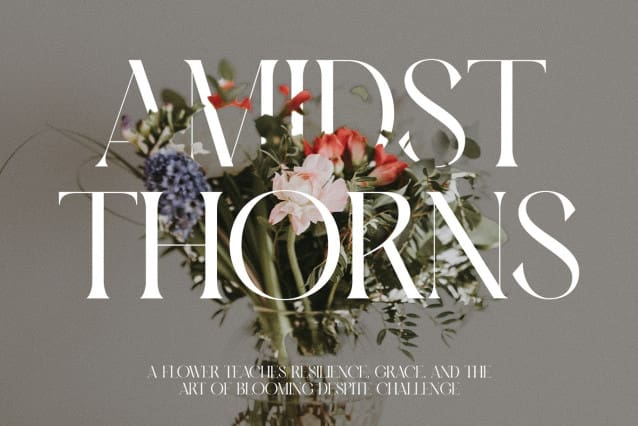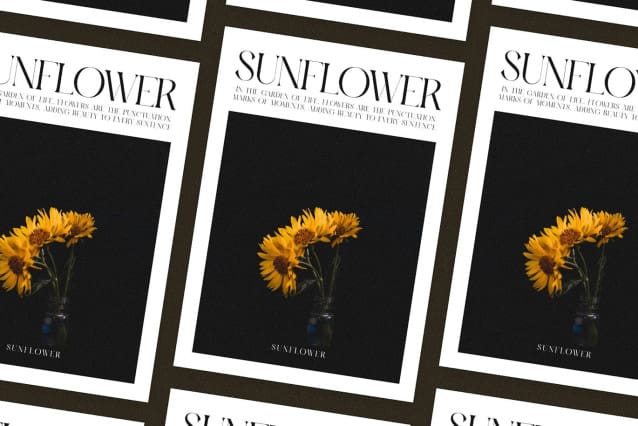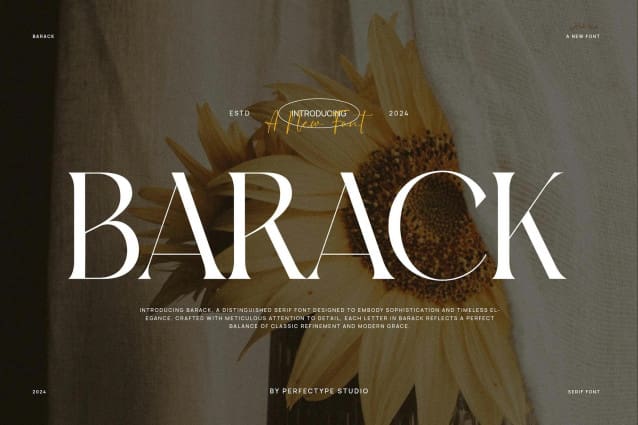
Barack Font
Barack Font, is a unique and very elegant font for branding and logo design An elegant serif font combined with a chic and modern style. This font type is perfect for your various needs like branding projects, logos, wedding designs, social media posts, advertisements, product packaging, product designs, labels, photography , watermarks, invitations, stationery and any project created with a high level of readability.